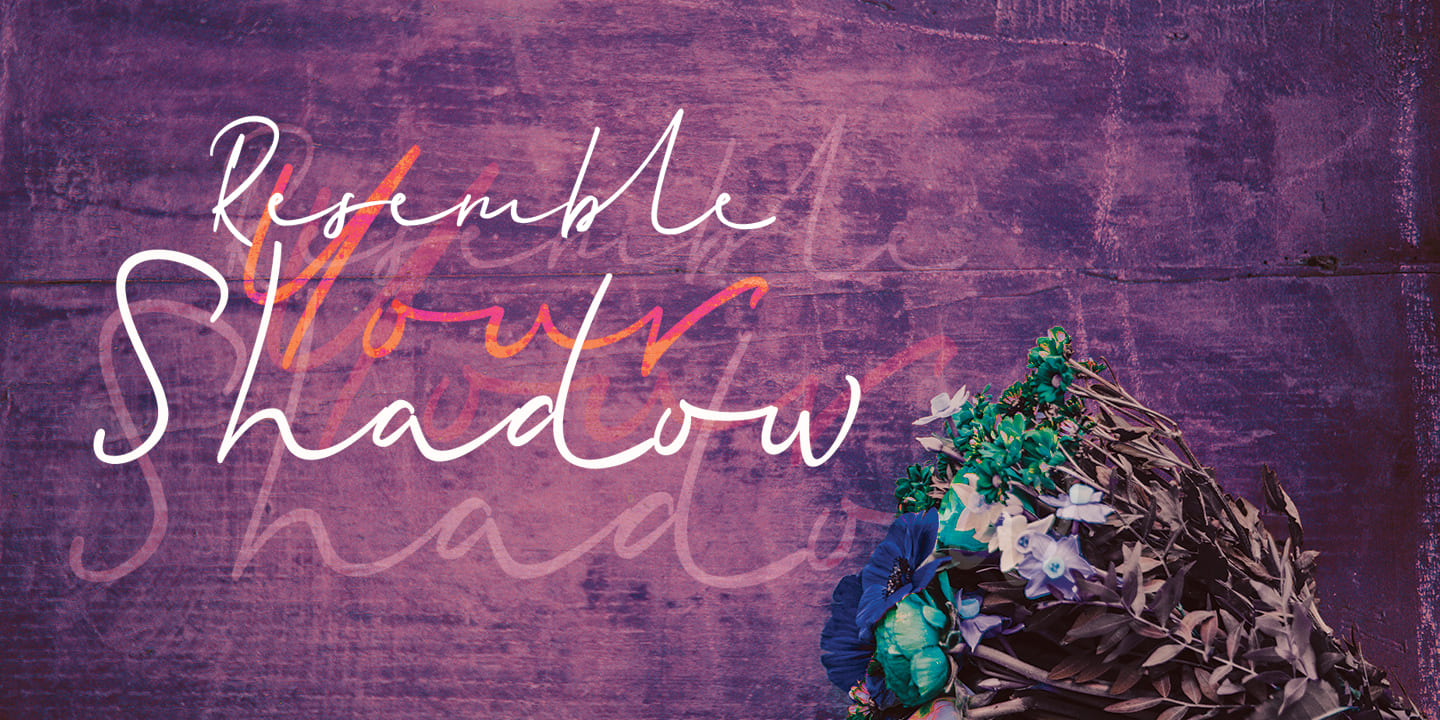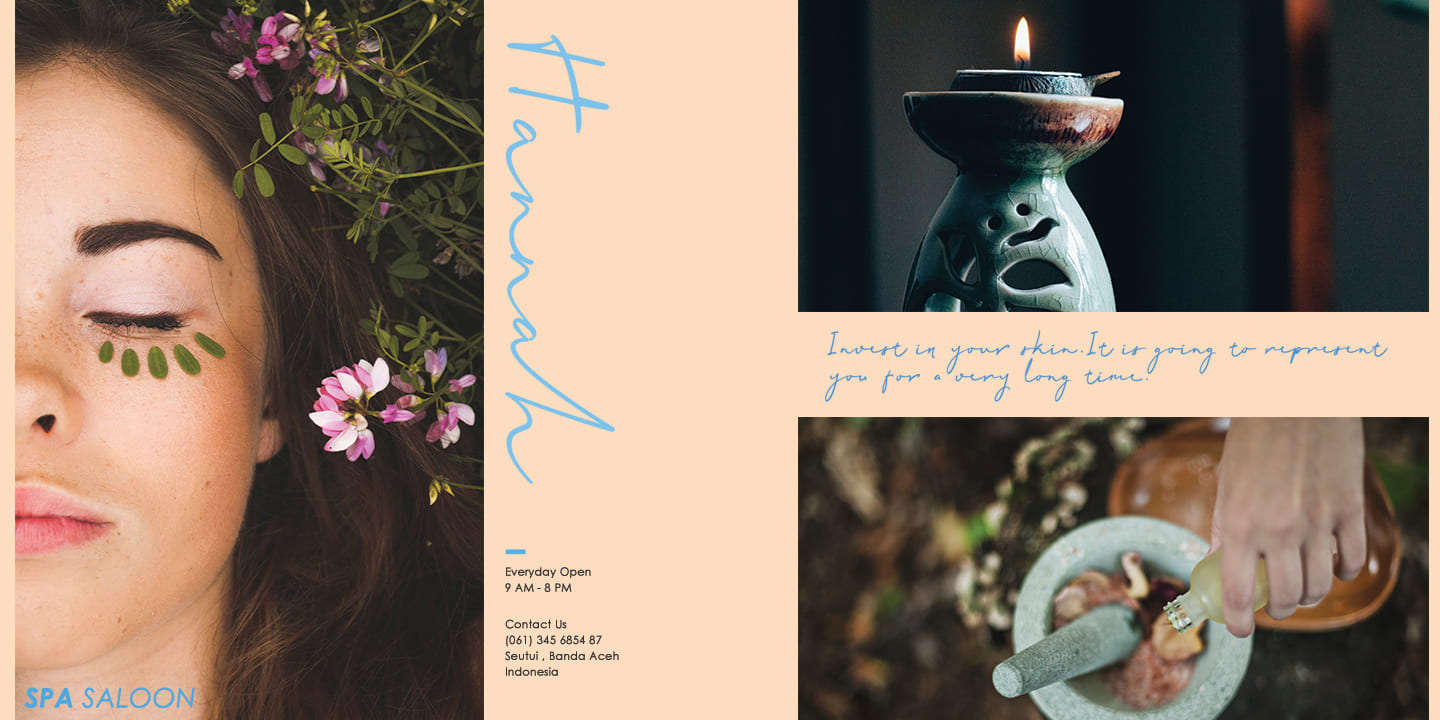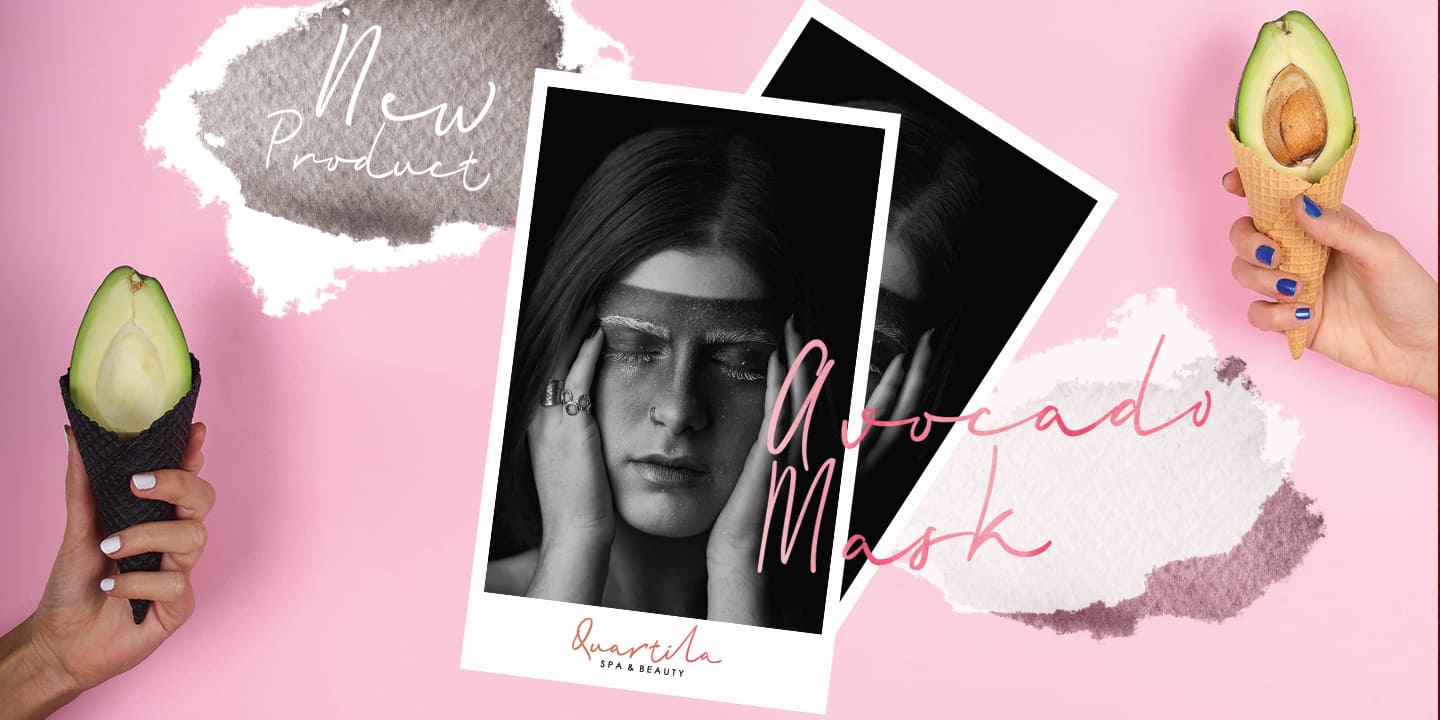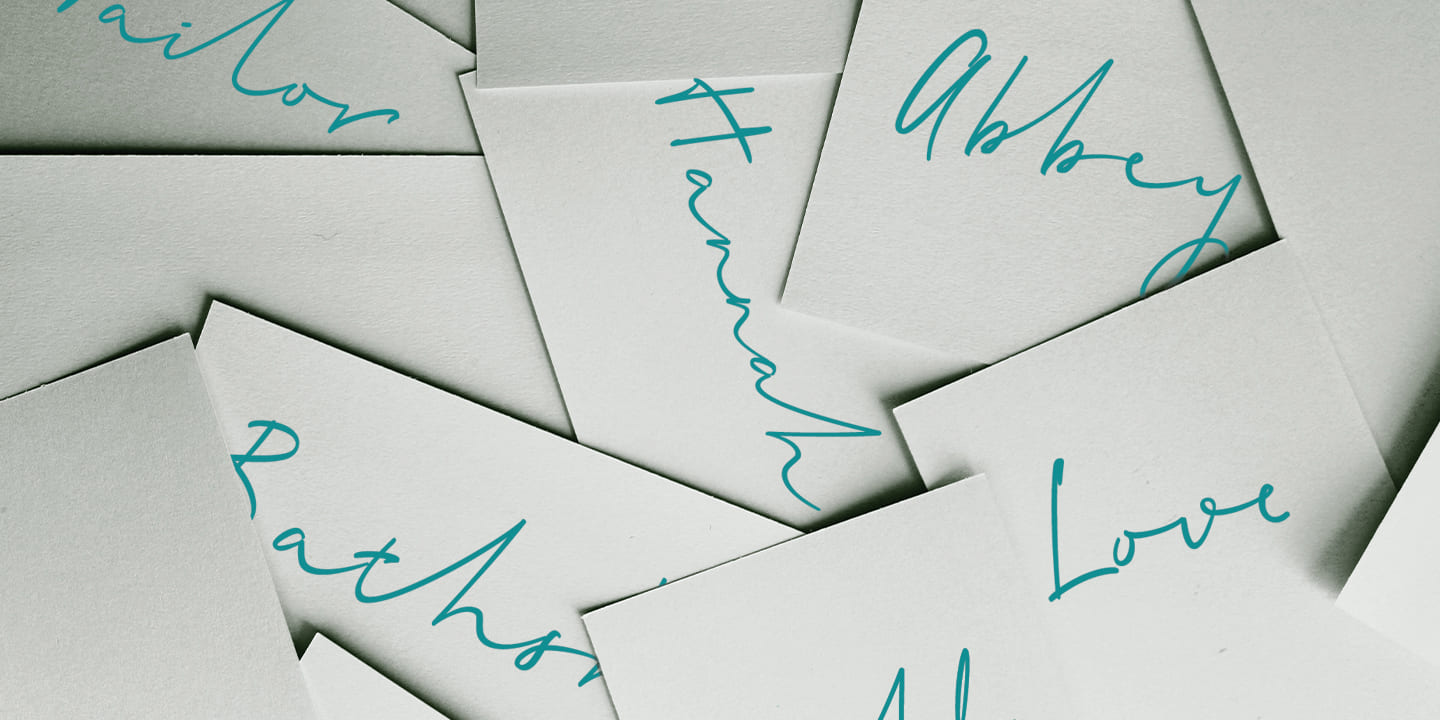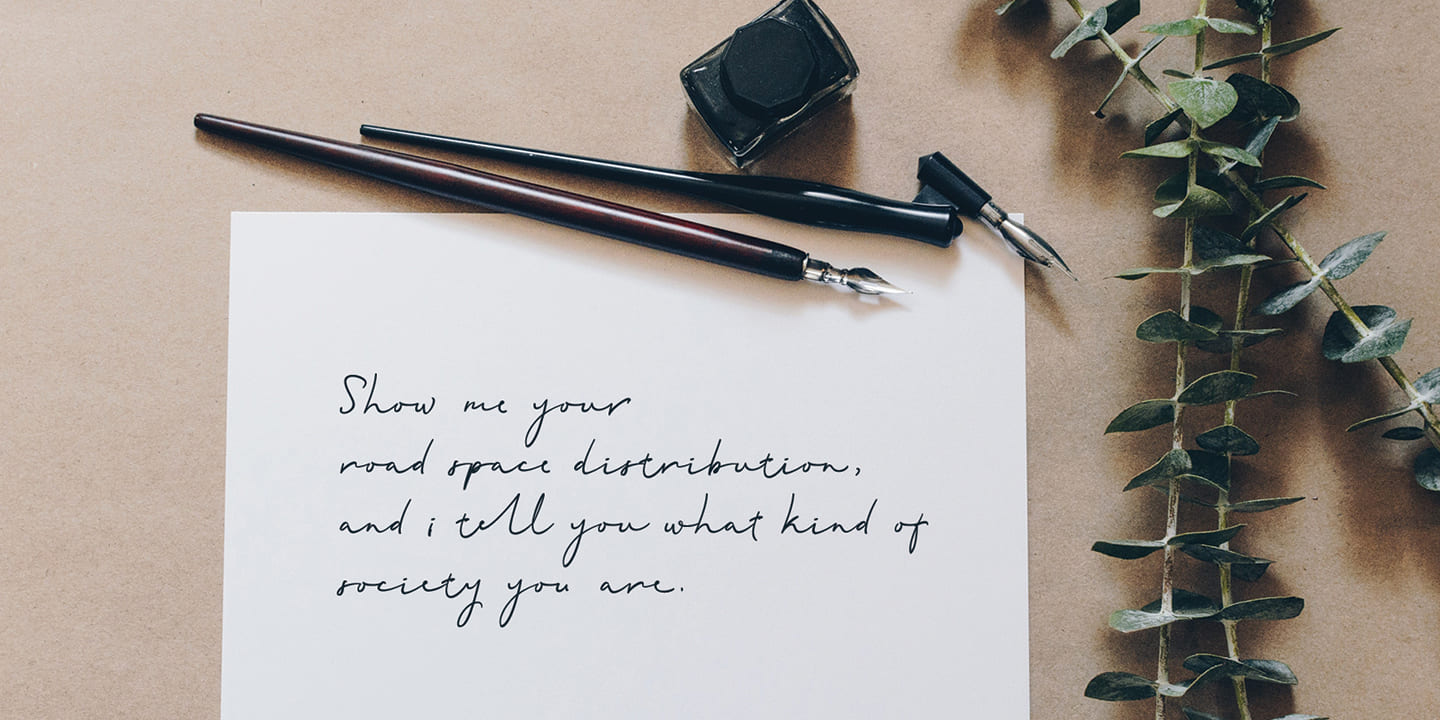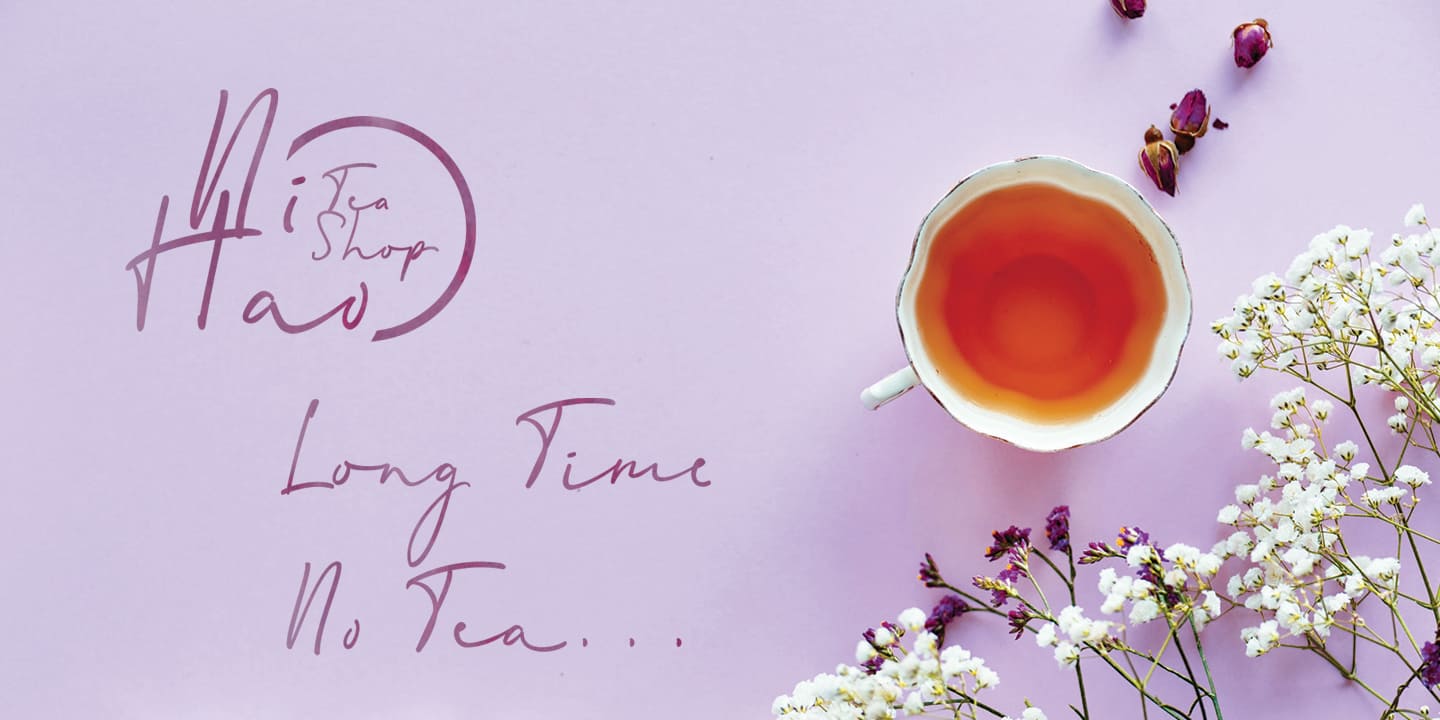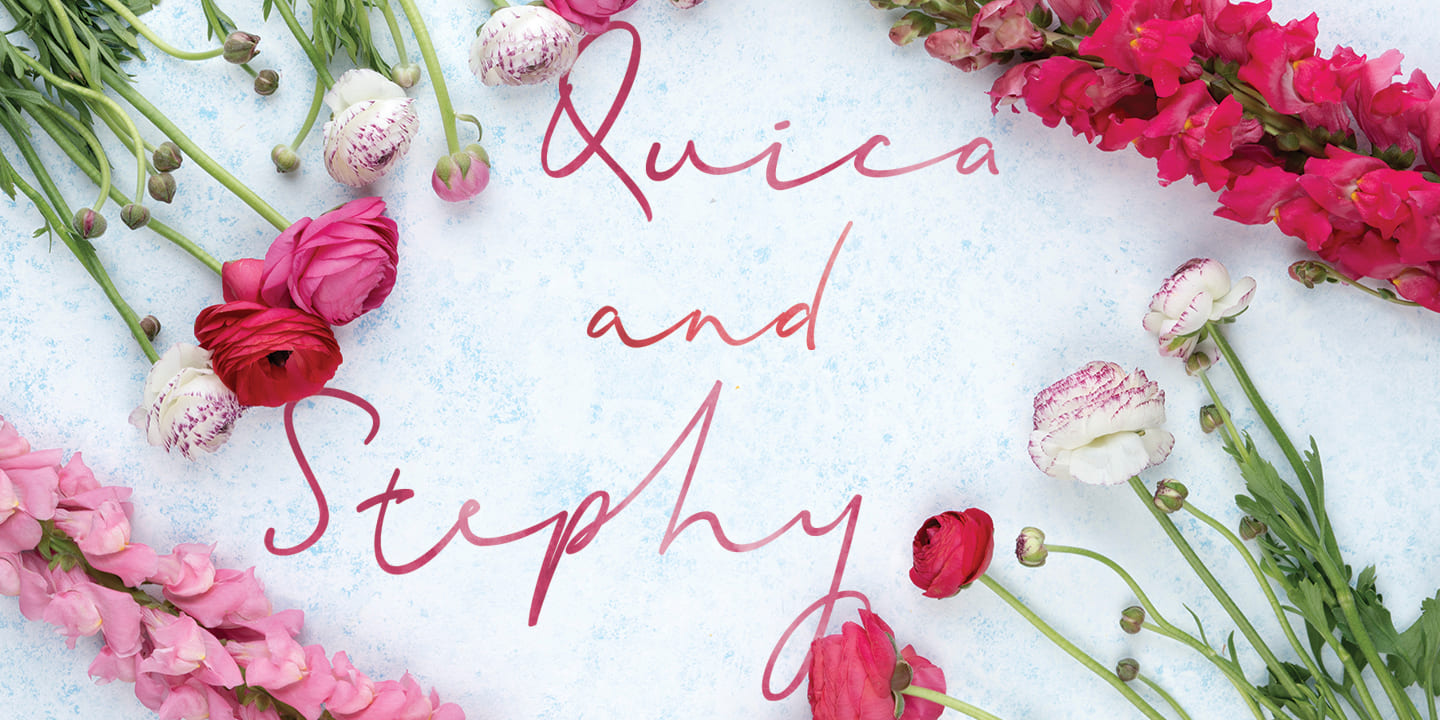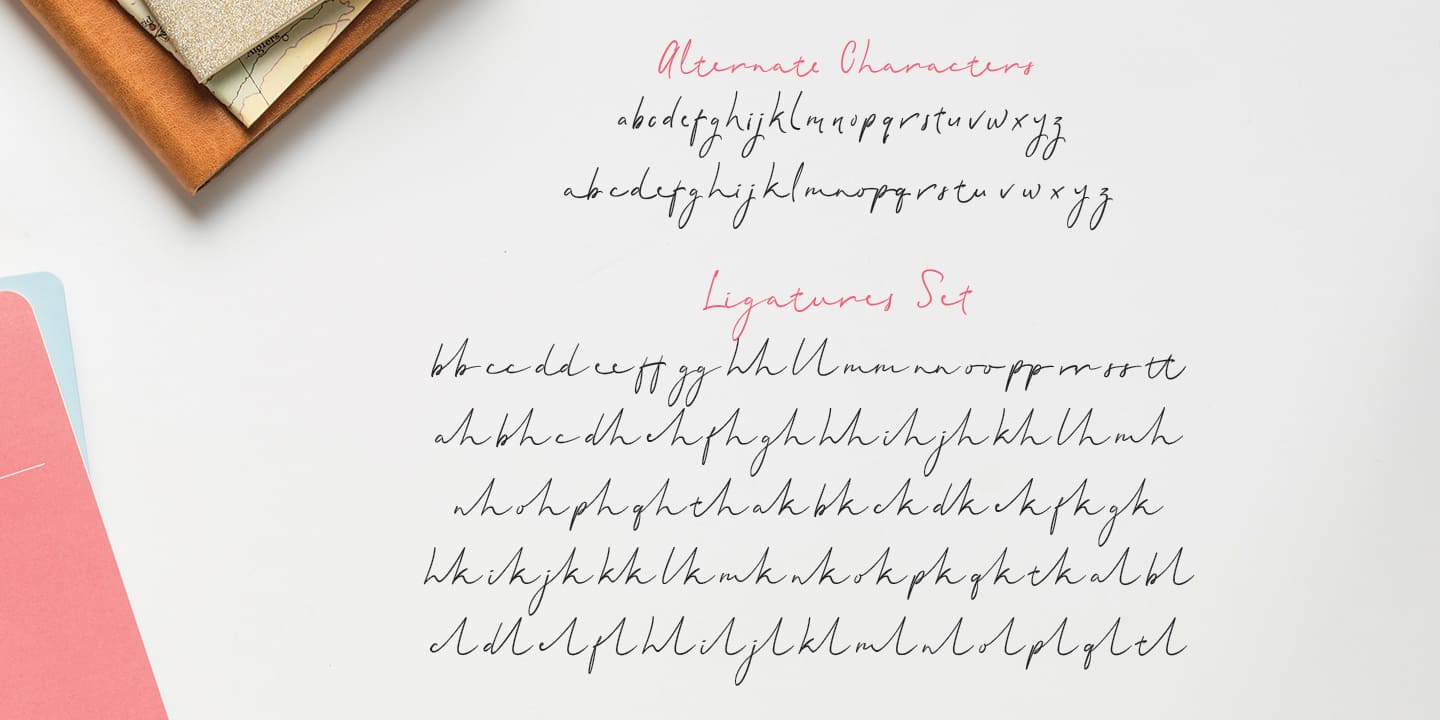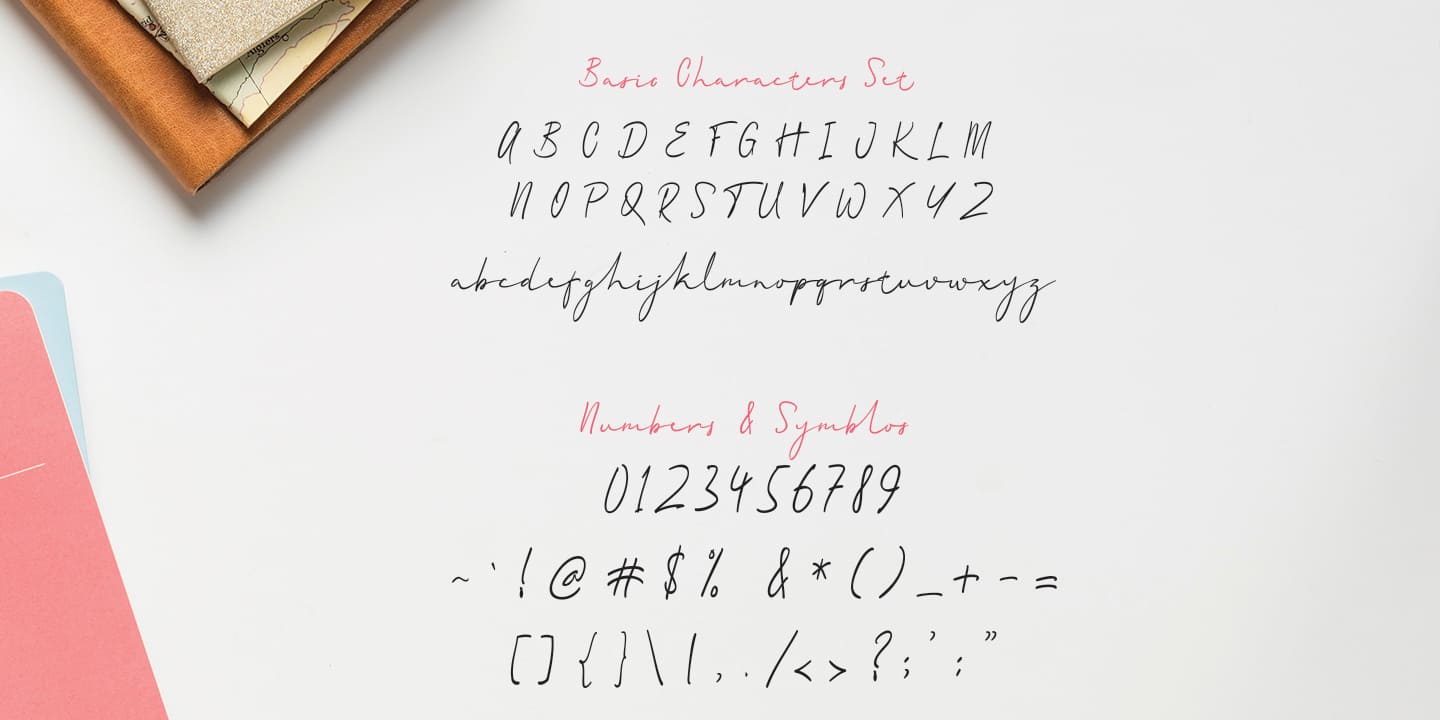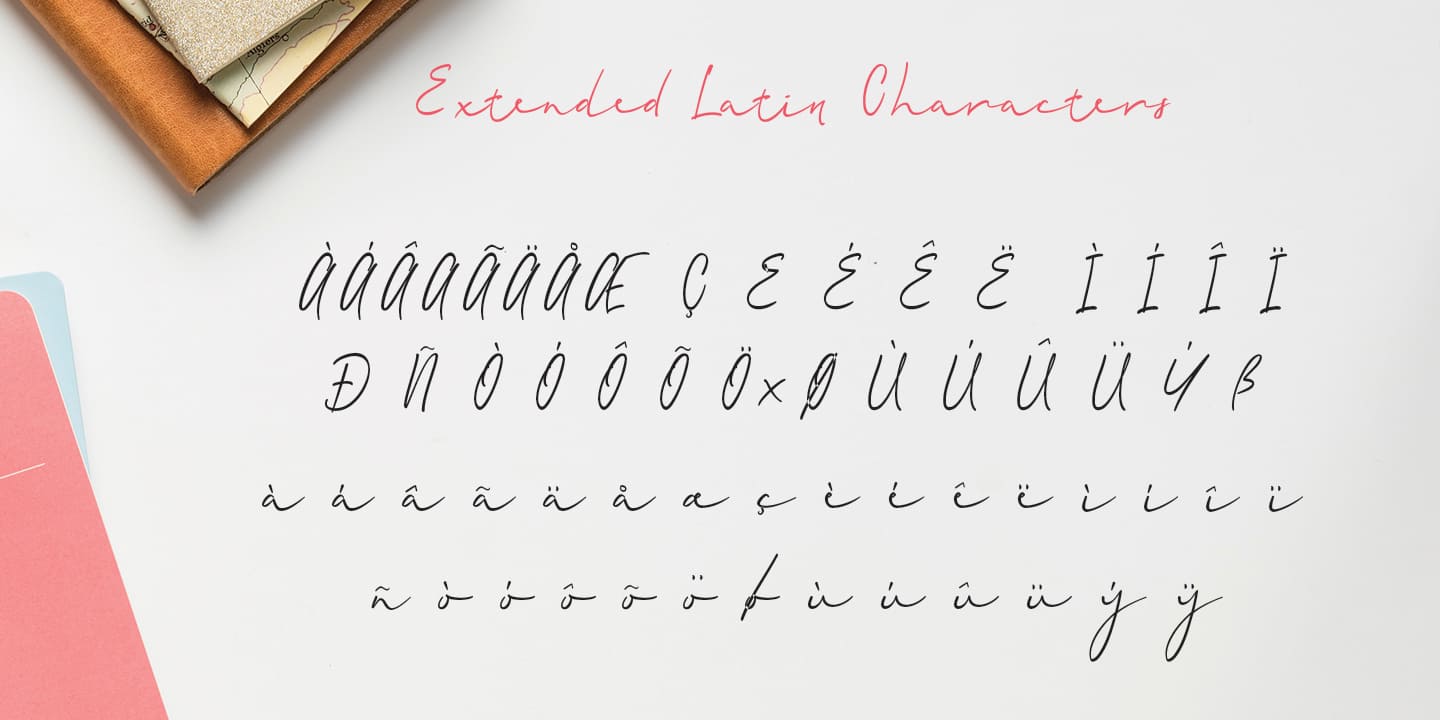
Quartila Script (1 font)
I proudly present this Quartila script font . Quartila is created with stylist and handwritten characters. This great font is PUA encoded . Quartila is a natural handwritten style that comes with Extended Latin Characters. Quartila works perfectly for logos, display, product branding, wedding invitation card, stationary, packaging, clothing, flyer, apparel, magazines, brochures, labels, posters, badges, etc.
Quartila comes with 339 glyphs and 52 alternate characters that contain opentype features. Quartila also comes with 67 ligatures allowing you to make design projects look more exclusive and pro standard.